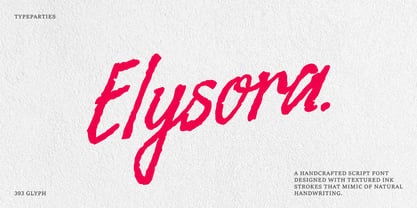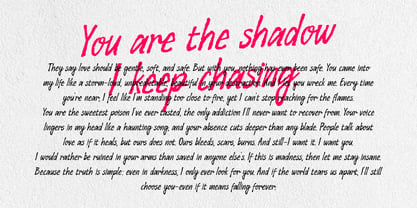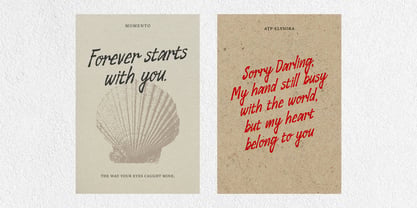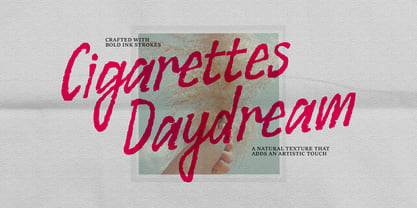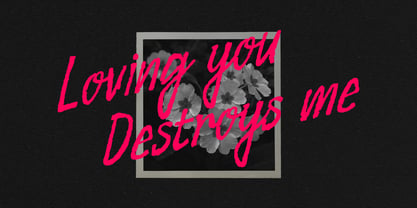
ATP Elysora
Die Schriftfamilie ATP Elysora wurde von Thufail Al ghifary entworfen und von Typeparties veröffentlicht. ATP Elysora enthält 1 Stile. Mehr über diese Familie
Elysora is a handcrafted script font that draws inspiration from the textured flow of vintage handwritten manuscripts. This font features bold, ink-heavy strokes complemented by expressive curves and natural imperfections, imparting a raw, authentic character to your designs. Accompanying it is Elysora Lite, a refined variation characterized by slender lines—delicate and minimal, ideal for creating contrast. Together, these two styles achieve a harmonious balance: the bold version delivers a powerful statement, while the Lite version introduces subtlety and elegance. This versatile pairing empowers designers to craft dynamic compositions suitable for branding, vintage-inspired posters, editorial layouts, or digital projects that require both strength and finesse.